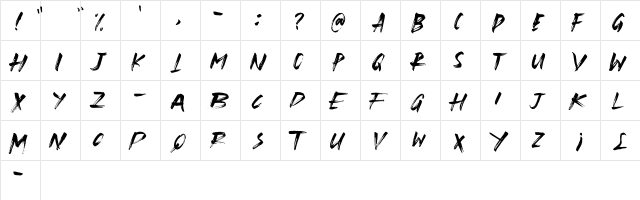
Blindspot Regular
| Designer | Sya'dan Ismail Rosyad |
Blindspot is a composed and adaptable typeface that performs quietly and consistently across a wide range of design contexts.